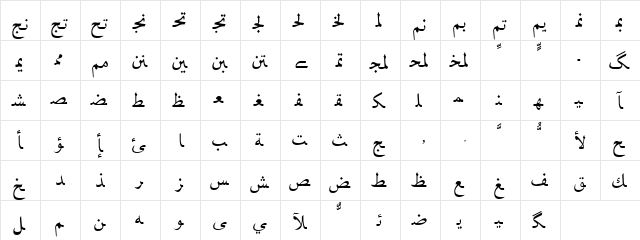
Arabian days Regular
Design Context for Arabian days Typeface
Arabian days offers clean, dependable letterforms without strong stylistic allegiance, making it a practical choice for designers who need flexibility.